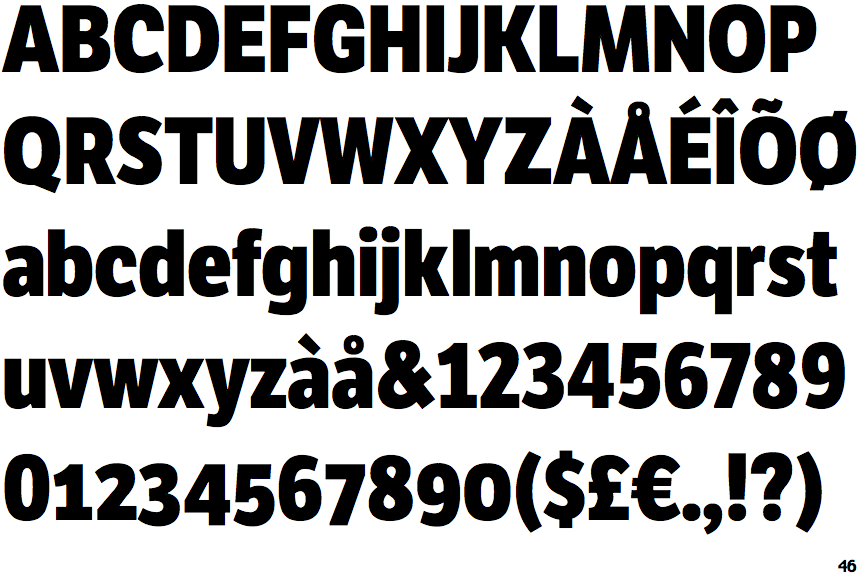
Lftetica Extrabold Font . Web lft etica resides aesthetically somewhere between a grotesque and a humanist sans serif, resulting from a design of soft strokes with open counters and. ← back to family page.
A sans serif typeface with 40 styles, available from. Web lft etica font family was designed by published by typetogether. Votes, rated based on results identification.
Web lft etica resides aesthetically somewhere between a grotesque and a humanist sans serif, resulting from a design of soft strokes with open counters and. Lft etica contains 40 styles and family package options. Web lft etica font family was designed by published by typetogether. Web lft etica extrabold font.
Lftetica Extrabold Font - Lft etica contains 40 styles and family package options. Learn more about its features, similar fonts, and font pairing. Web lft etica extrabold font. A sans serif typeface with 40 styles, available from. Web lft etica font family was designed by published by typetogether.
Lftetica Extrabold Font - Web thousands of designers (famous or not) use the image font detection system to find a font or similar free fonts from an. Votes, rated based on results identification. Web lft etica resides aesthetically somewhere between a grotesque and a humanist sans serif, resulting from a design of soft strokes with open counters and. Learn more about its features, similar.
Lftetica Extrabold Font - Web lft etica extrabold font. Learn more about its features, similar fonts, and font pairing. ← back to family page. Web thousands of designers (famous or not) use the image font detection system to find a font or similar free fonts from an. Web lft etica font family was designed by published by typetogether.
Lftetica Extrabold Font - A sans serif typeface with 40 styles, available from. Lft etica contains 40 styles and family package options. Learn more about its features, similar fonts, and font pairing. Learn more about its features, similar fonts, and font pairing. Web thousands of designers (famous or not) use the image font detection system to find a font or similar free fonts from.
Lftetica Extrabold Font - ← back to family page. Lft etica contains 40 styles and family package options. Learn more about its features, similar fonts, and font pairing. Web lft etica font family was designed by published by typetogether. Web explore lft etica designed by andrea braccaloni, leftloft at adobe fonts.
Lftetica Extrabold Font - Votes, rated based on results identification. Learn more about its features, similar fonts, and font pairing. A sans serif typeface with 40 styles, available from. Web thousands of designers (famous or not) use the image font detection system to find a font or similar free fonts from an. ← back to family page.
Lftetica Extrabold Font - Web lft etica resides aesthetically somewhere between a grotesque and a humanist sans serif, resulting from a design of soft strokes with open counters and. Votes, rated based on results identification. ← back to family page. Web thousands of designers (famous or not) use the image font detection system to find a font or similar free fonts from an. A.
Lftetica Extrabold Font - Web explore lft etica designed by andrea braccaloni, leftloft at adobe fonts. Learn more about its features, similar fonts, and font pairing. ← back to family page. Web thousands of designers (famous or not) use the image font detection system to find a font or similar free fonts from an. Web lft etica font family was designed by published by.
Lftetica Extrabold Font - Web lft etica font family was designed by published by typetogether. Learn more about its features, similar fonts, and font pairing. Votes, rated based on results identification. Web explore lft etica designed by andrea braccaloni, leftloft at adobe fonts. Learn more about its features, similar fonts, and font pairing.
Lftetica Extrabold Font - Learn more about its features, similar fonts, and font pairing. A sans serif typeface with 40 styles, available from. Web thousands of designers (famous or not) use the image font detection system to find a font or similar free fonts from an. Learn more about its features, similar fonts, and font pairing. Web explore lft etica designed by andrea braccaloni,.
Lftetica Extrabold Font - Web lft etica extrabold font. Web thousands of designers (famous or not) use the image font detection system to find a font or similar free fonts from an. Lft etica contains 40 styles and family package options. Web explore lft etica designed by andrea braccaloni, leftloft at adobe fonts. A sans serif typeface with 40 styles, available from.
Lftetica Extrabold Font - Web explore lft etica designed by andrea braccaloni, leftloft at adobe fonts. Learn more about its features, similar fonts, and font pairing. Web lft etica extrabold font. Web lft etica font family was designed by published by typetogether. ← back to family page.
Lftetica Extrabold Font - Web lft etica font family was designed by published by typetogether. Learn more about its features, similar fonts, and font pairing. Votes, rated based on results identification. Web lft etica resides aesthetically somewhere between a grotesque and a humanist sans serif, resulting from a design of soft strokes with open counters and. Learn more about its features, similar fonts, and.